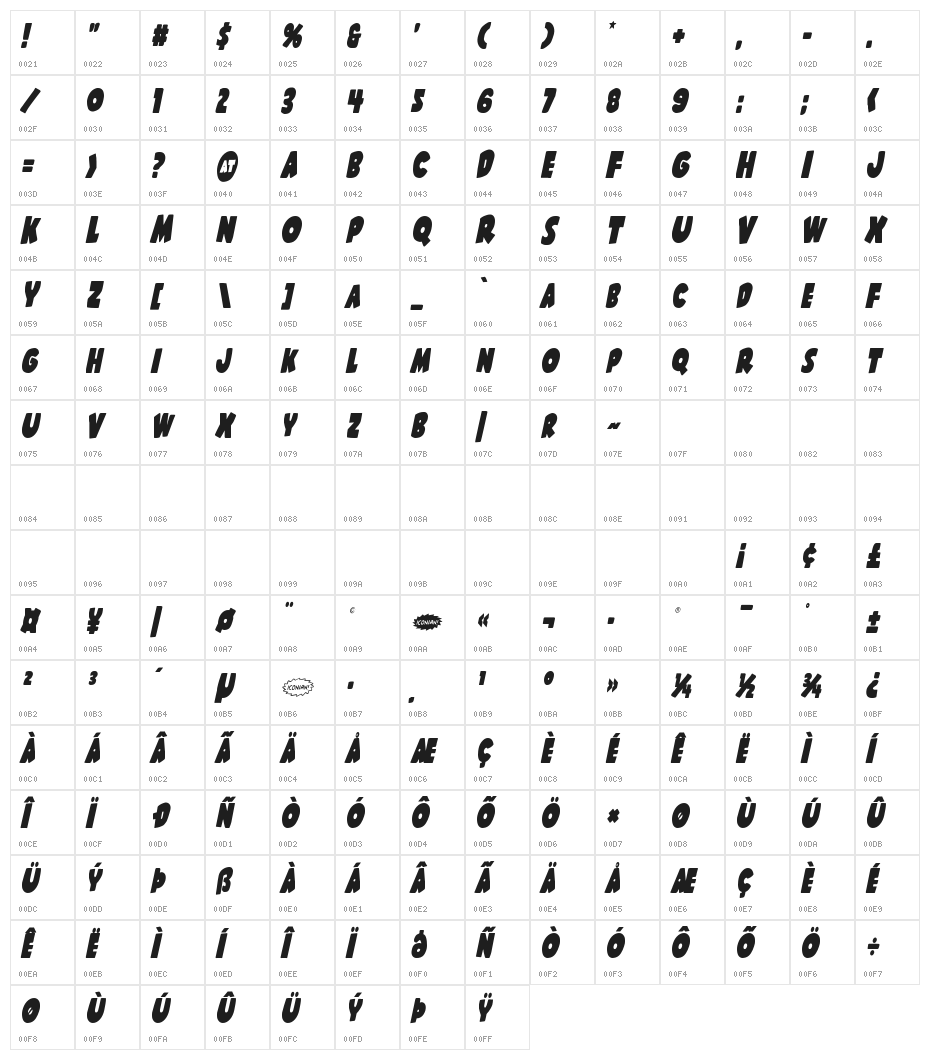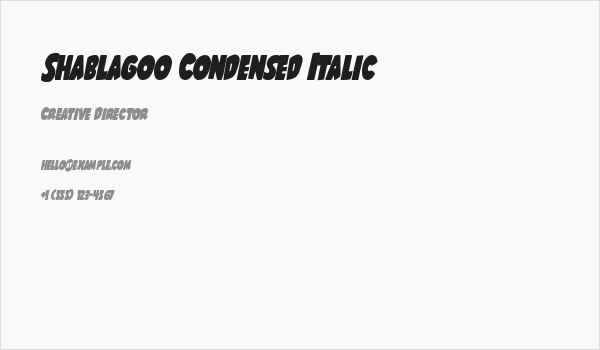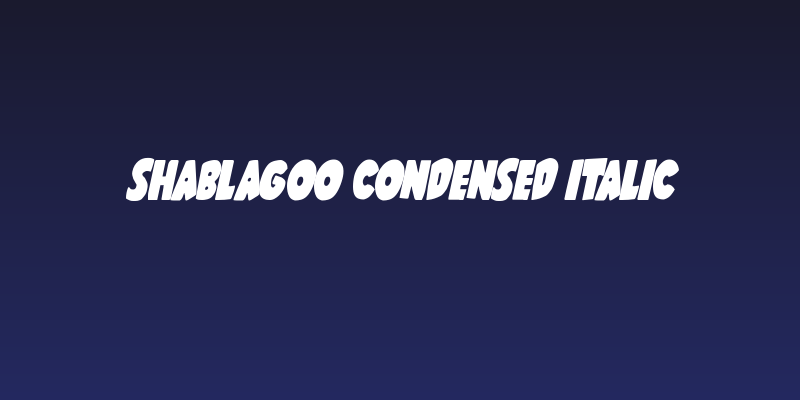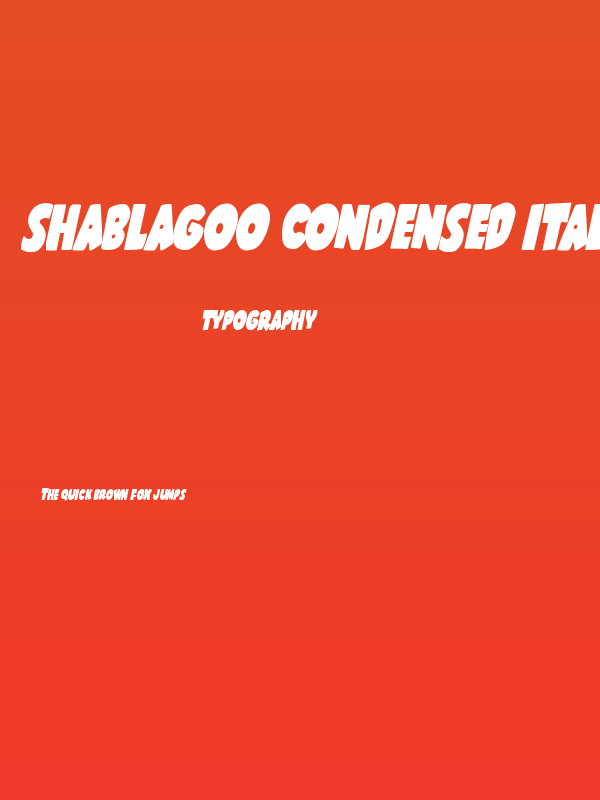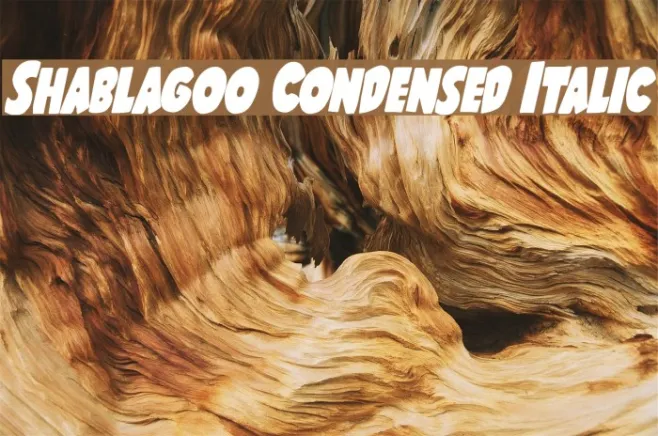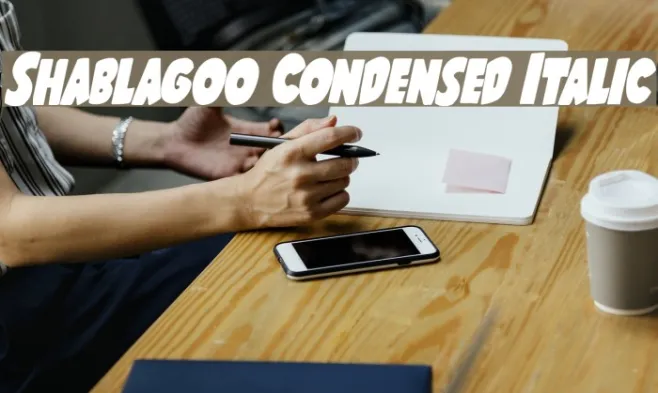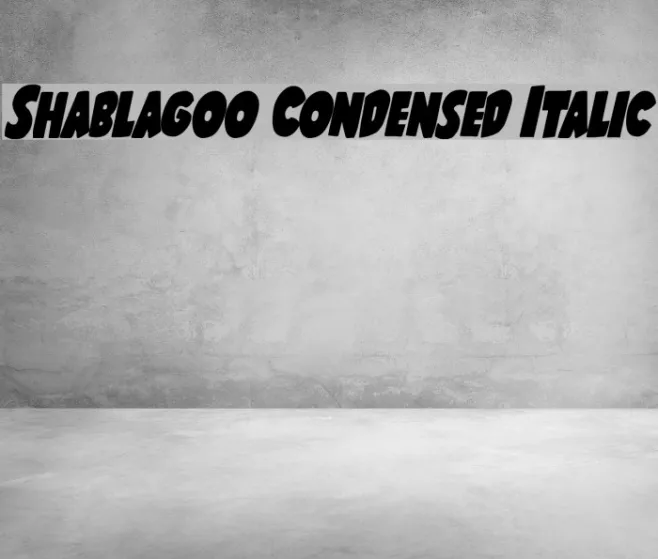
Shablagoo Condensed Italic Font
Shablagoo Condensed Italic Description
This font features a bold and dynamic style with a condensed and italicized form. The characters are thick and robust, giving a strong visual impact. The strokes are consistent in weight, providing a uniform appearance across all characters. The italic slant adds a sense of motion and energy, making it suitable for attention-grabbing designs. The condensed width allows for efficient use of space, making it ideal for headlines or titles where space is limited. The font includes a full set of uppercase and lowercase letters, numbers, and a variety of special characters, ensuring versatility in design applications.
| Proposed Projects | Ideal for posters, headlines, logos, and any design needing a bold statement. |